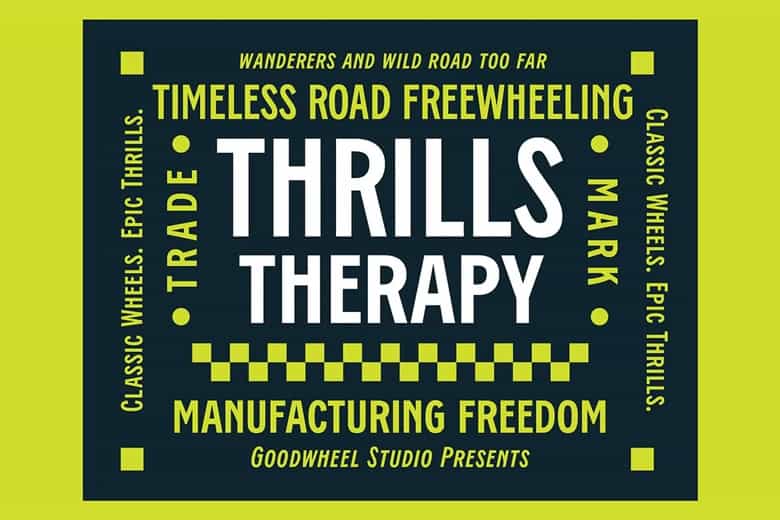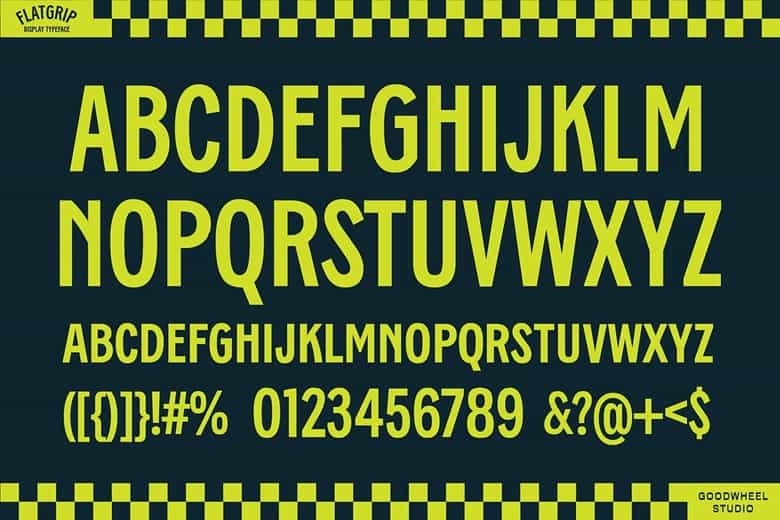
GW Flatgrip is a contemporary Sans Serif font that is somewhat a fusion of the old and new. This design is great for conveying a message because it has very definite lines and is not shy. The GW Flatgrip is easy to recognize and is guaranteed to make your designs stand out from the rest.